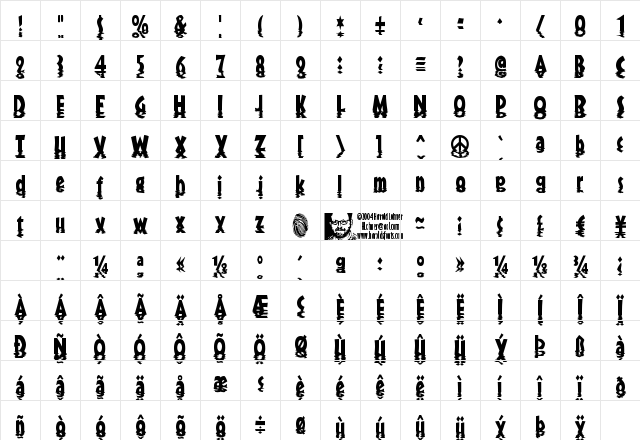
Sunset Regular Free Font
Sunset Regular
Design Context for Sunset
Sunset is a composed and adaptable typeface that performs quietly and consistently across a wide range of design contexts.